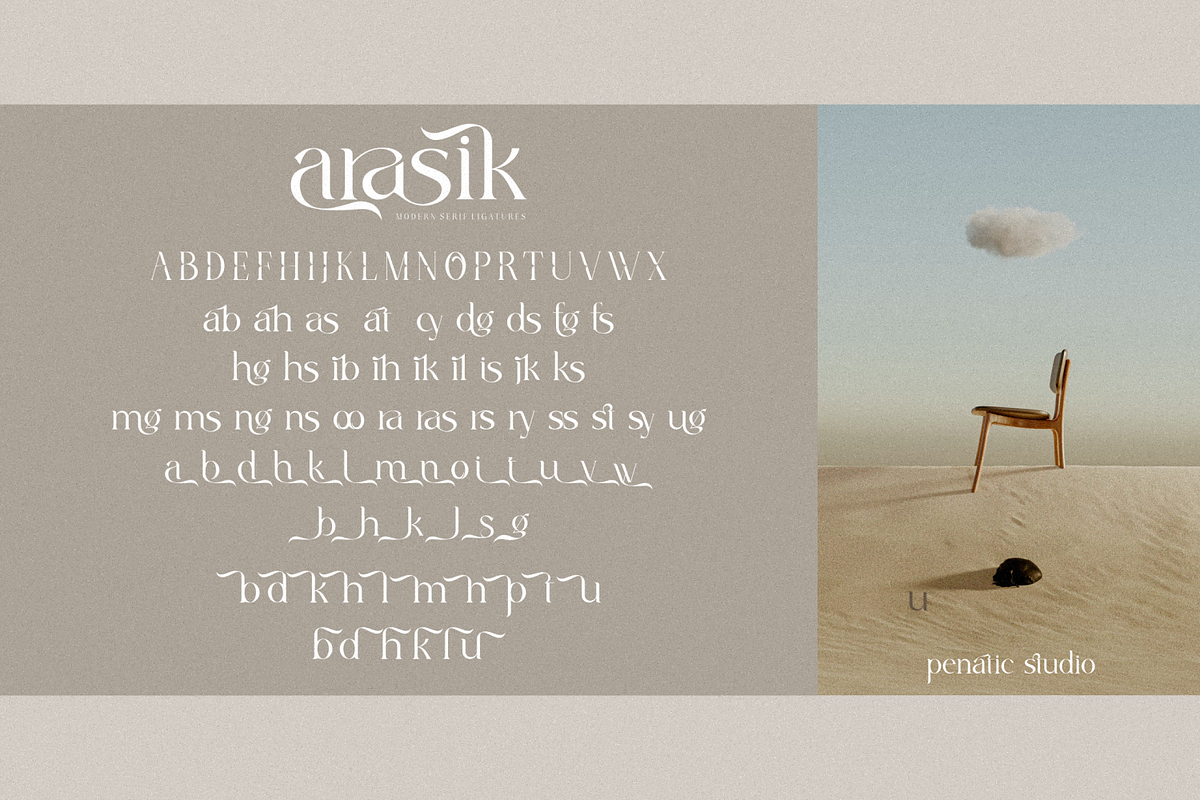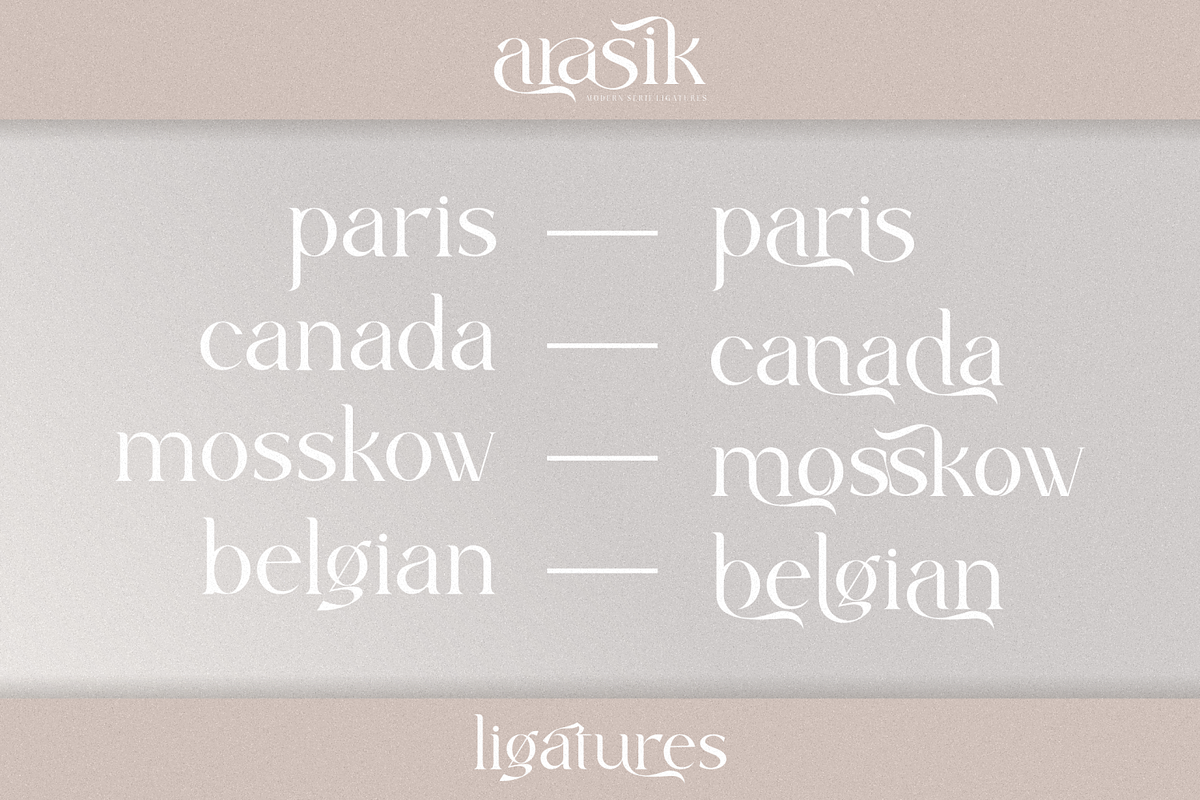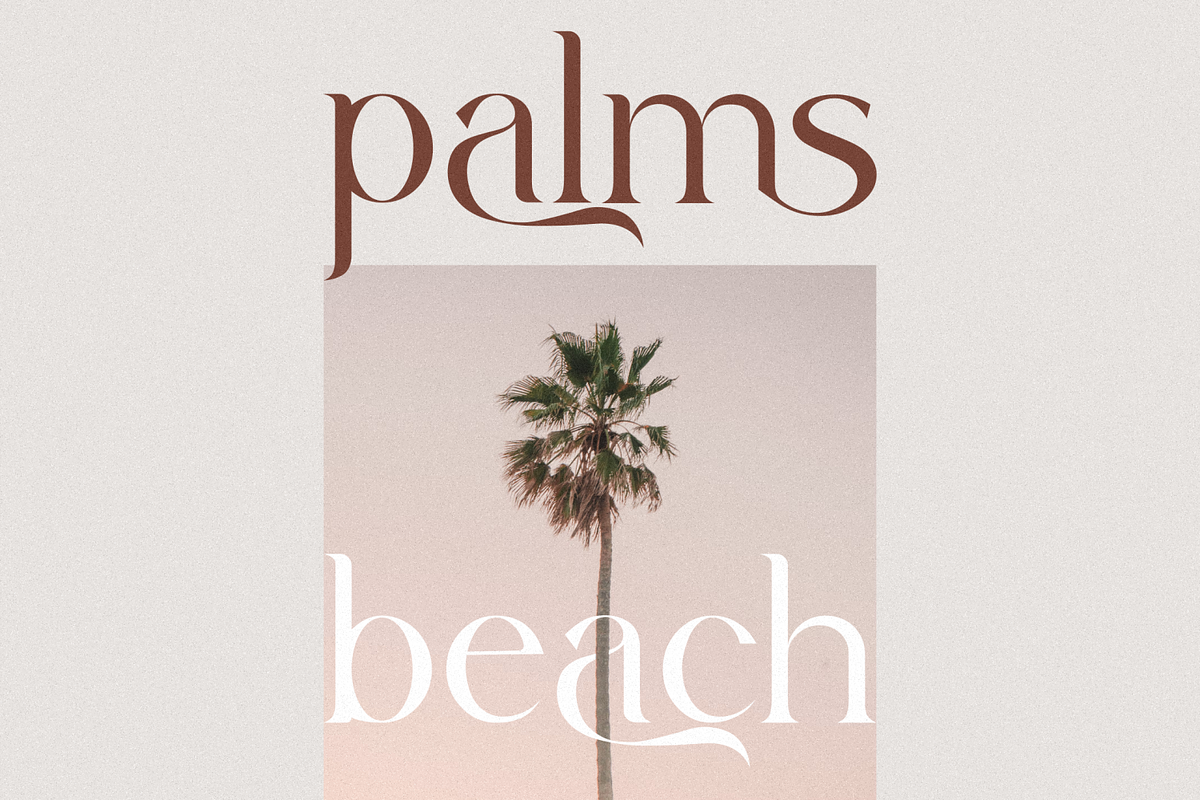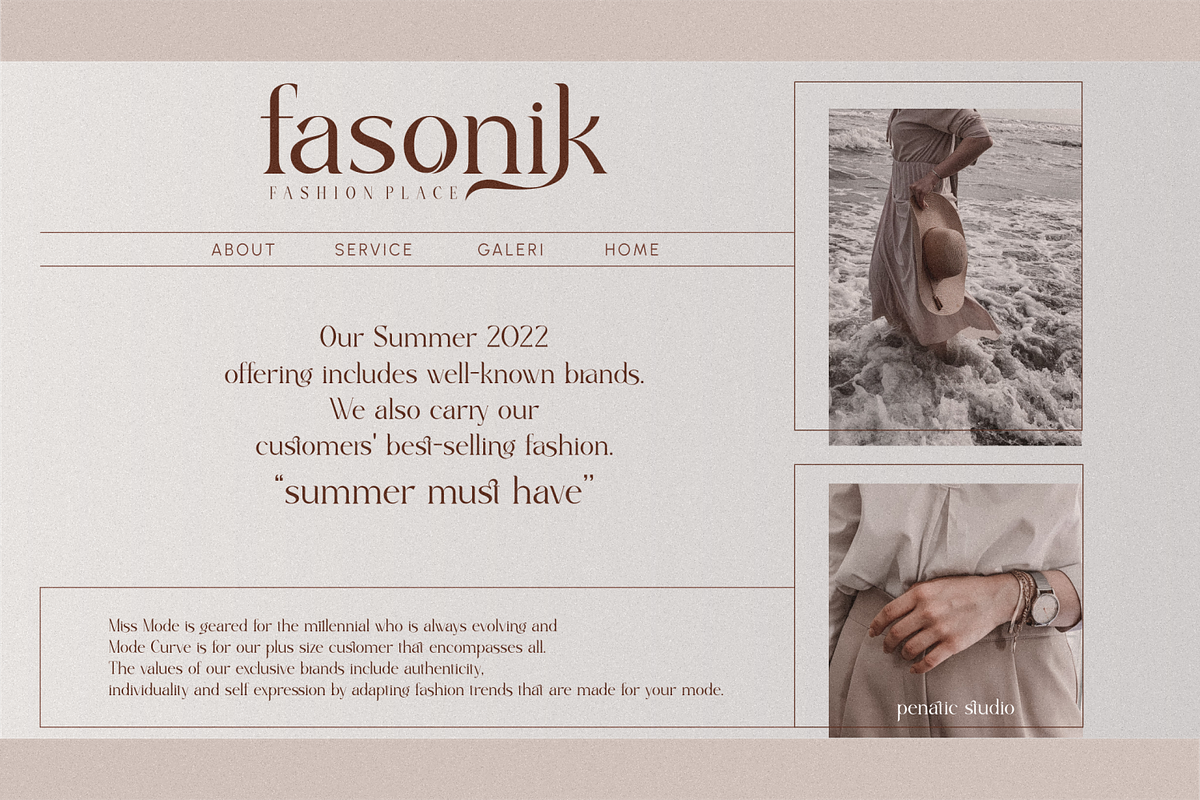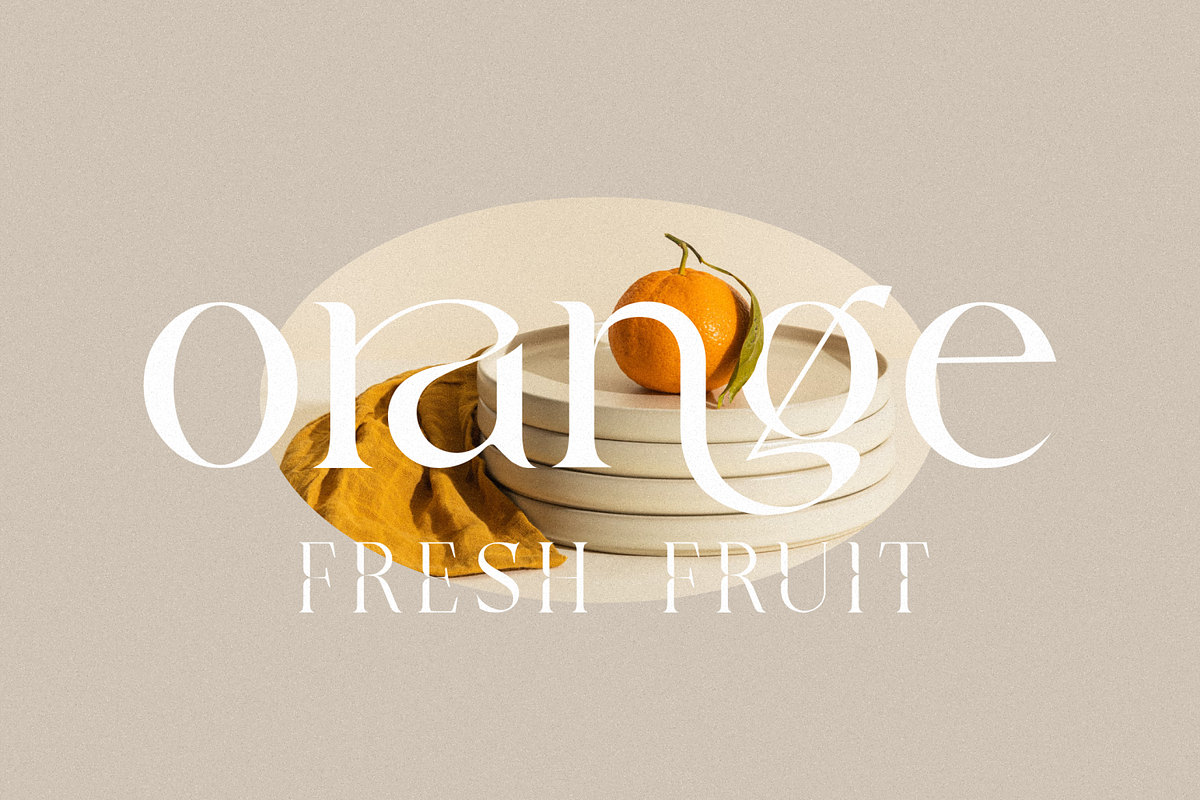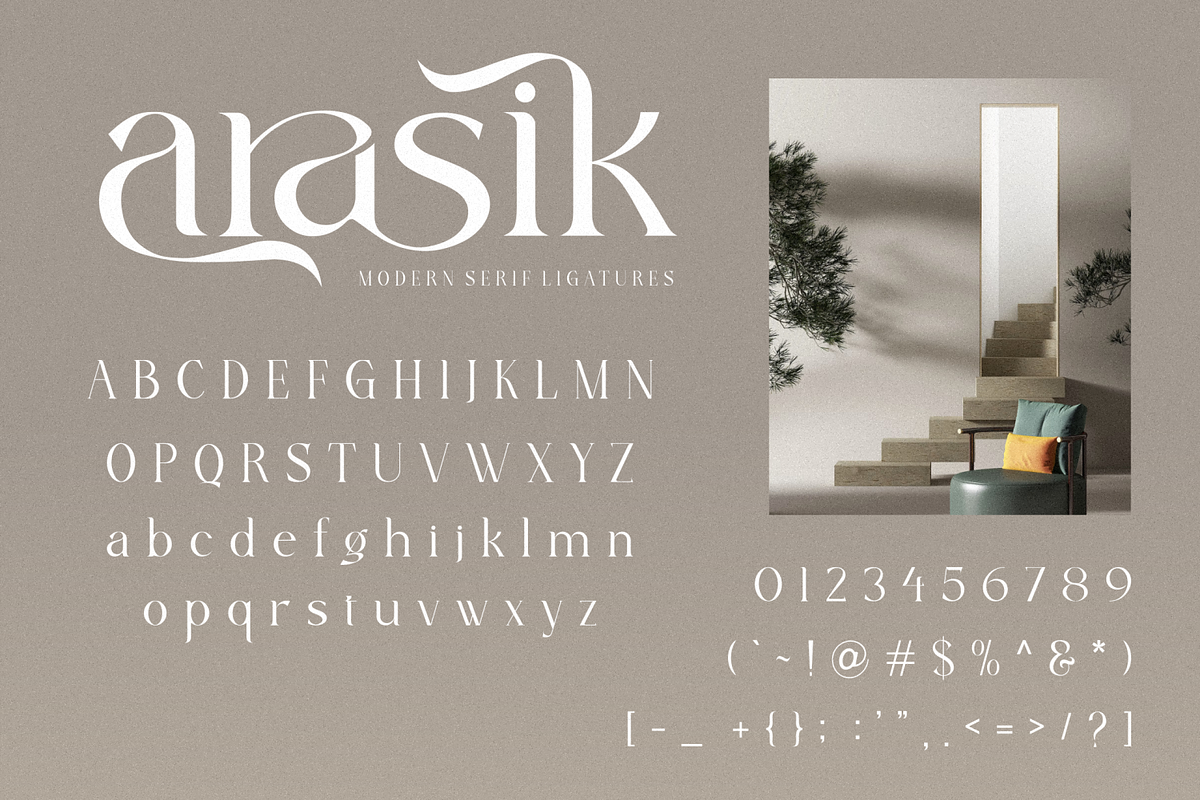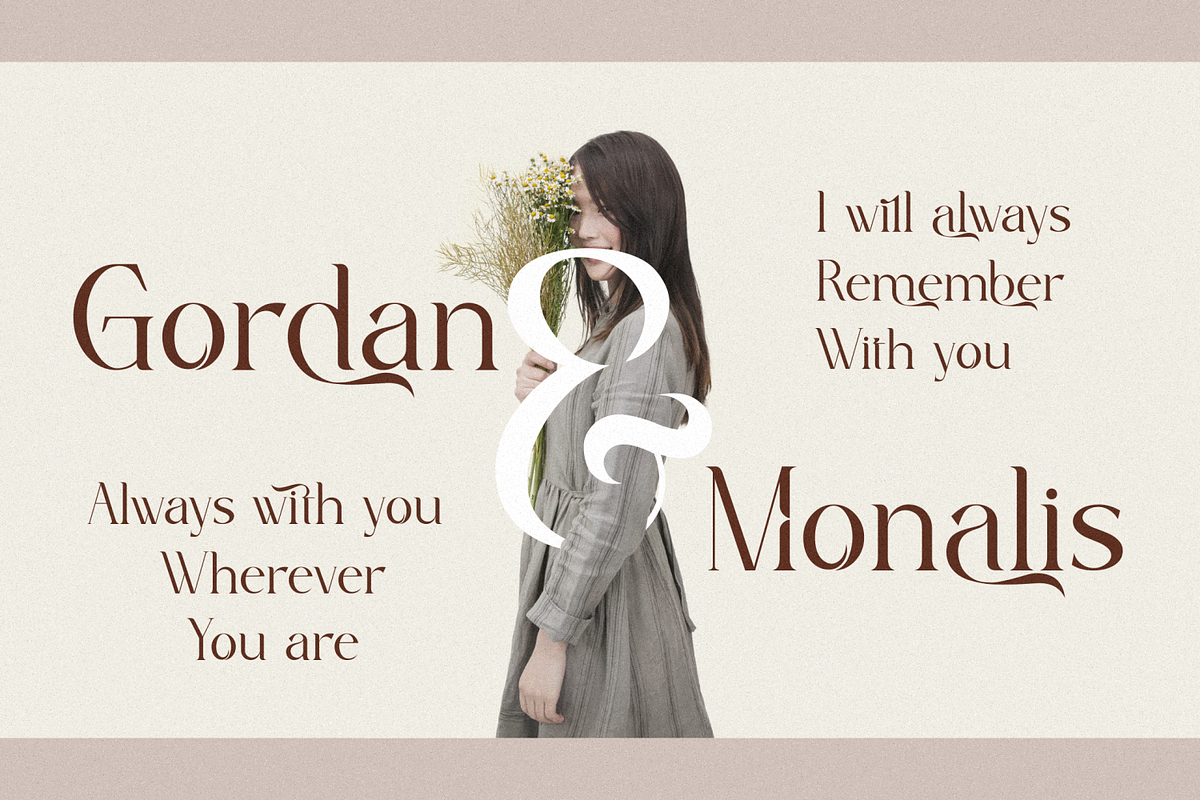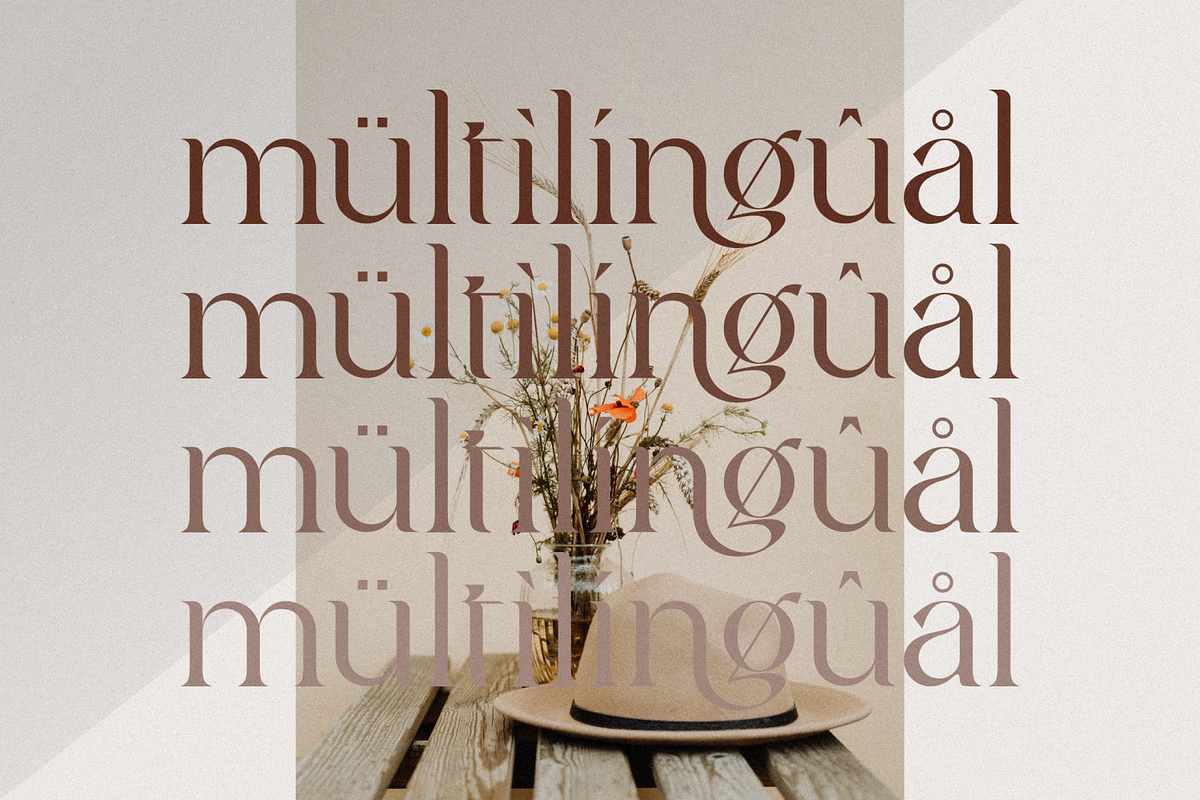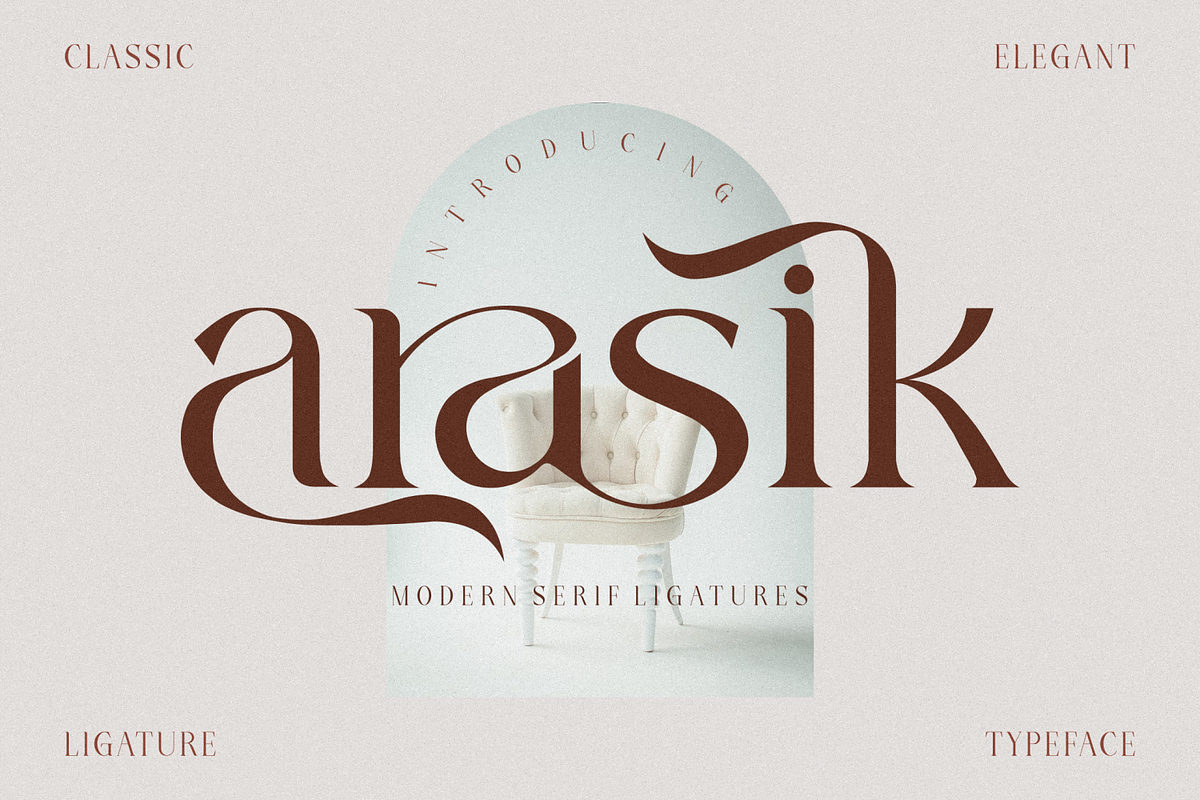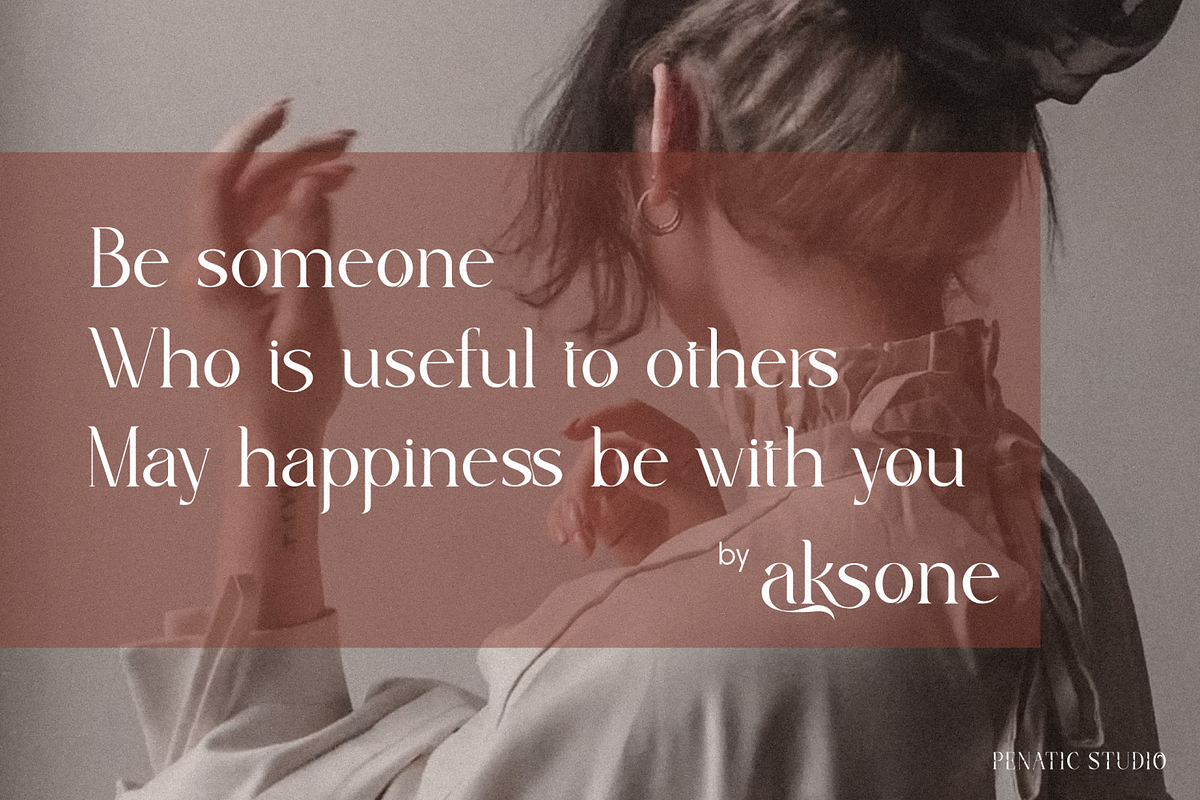
arasik _ modern serif ligatures
Introducing our new product. Arasik _ modern serif ligatures. A very modern and elegant serif font with lots of ligatures and letter alternatives making it perfect for your projects.
Alternate and ligatures
Unique letterforms